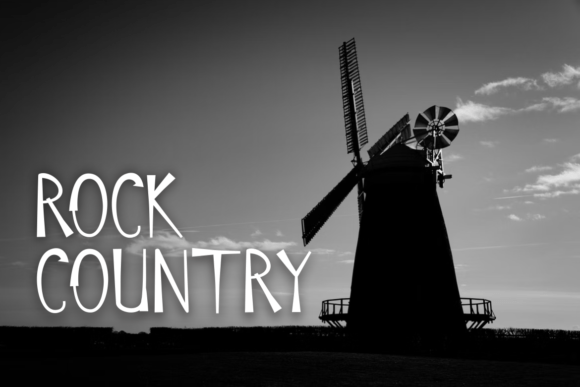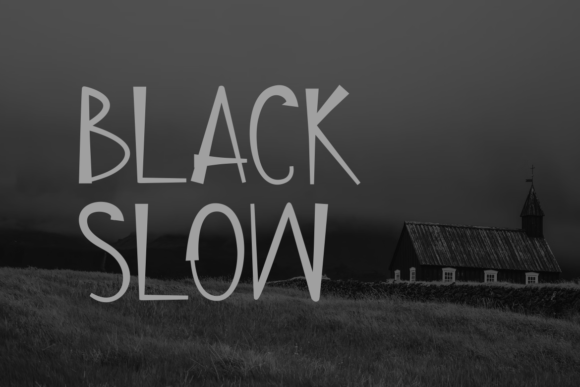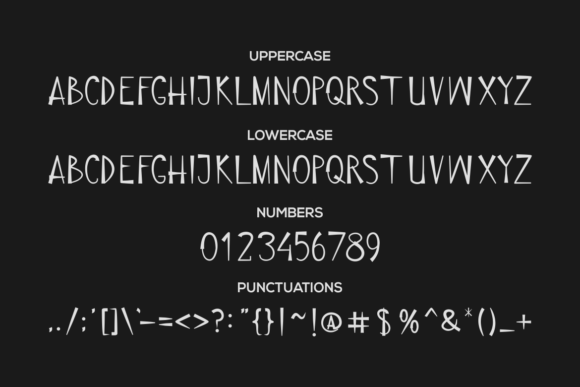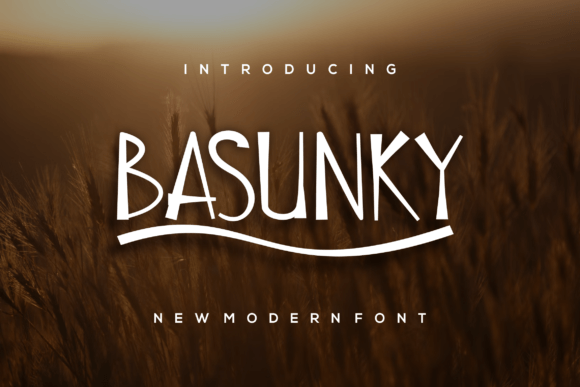
Introducing Basunky Font: Elevate Your Designs with a Touch of Modern Elegance
In the world of typography, fonts play a crucial role in making or breaking a design. A well-chosen font can instantly elevate your project, adding a touch of sophistication and style. If you’re on the lookout for a unique display font that exudes modern elegance, look no further than Basunky Font. This stunning typeface is specially designed to make your designs stand out, perfect for headlines, logos, and any creative project that demands outstanding typography.
The Unique Charm of Basunky Font
Basunky Font is a one-of-a-kind display font that brings a fresh perspective to the world of typography. Its handwriting touches add a personal and human feel to your designs, making them look modern and classy. The font’s unique character is perfect for designers and crafters who want to add a touch of personality to their work. Whether you’re creating a logo, headline, or export material, Basunky Font is the perfect choice.
Basunky Font is designed to be versatile, making it perfect for a wide range of creative projects. Its modern and elegant design makes it ideal for:
• Headlines: Add a touch of sophistication to your headlines with Basunky Font’s unique and elegant design.
• Logos: Create a lasting impression with a custom logo that showcases your brand’s personality and style.
• Exports: Elevate your export materials, such as brochures, flyers, and posters, with a font that demands attention.
• Creative Projects: Add a touch of elegance to your creative projects, such as art, illustrations, and graphics.
Why Choose Basunky Font?
With so many fonts available, why choose Basunky Font? Here are just a few reasons why designers and crafters love this unique typeface:
• Unique Design: Basunky Font’s handwriting touches and modern design make it stand out from the crowd.
• Versatility: Perfect for a wide range of creative projects, from headlines to logos and exports.
• Elegance: Add a touch of sophistication and style to your designs with Basunky Font’s elegant design.
Adding Your Style and Brand Overview
Basunky Font is more than just a font – it’s a way to express your style and brand personality. With its unique design and elegant touches, this font is perfect for adding a personal touch to your designs. Whether you’re a designer, crafter, or entrepreneur, Basunky Font is the perfect choice for anyone looking to elevate their brand and make a lasting impression.
In conclusion, Basunky Font is a unique and elegant display font that’s perfect for designers and crafters looking to add a touch of modern sophistication to their designs. With its handwriting touches, versatile design, and ease of use, this font is sure to become a favorite in your design arsenal. So why wait? Download Basunky Font today and elevate your designs to the next level!
• Unique display font with handwriting touches
• Perfect for headlines, logos, exports, and creative projects
• Modern and elegant design
• Perfect for adding a personal touch to your designs